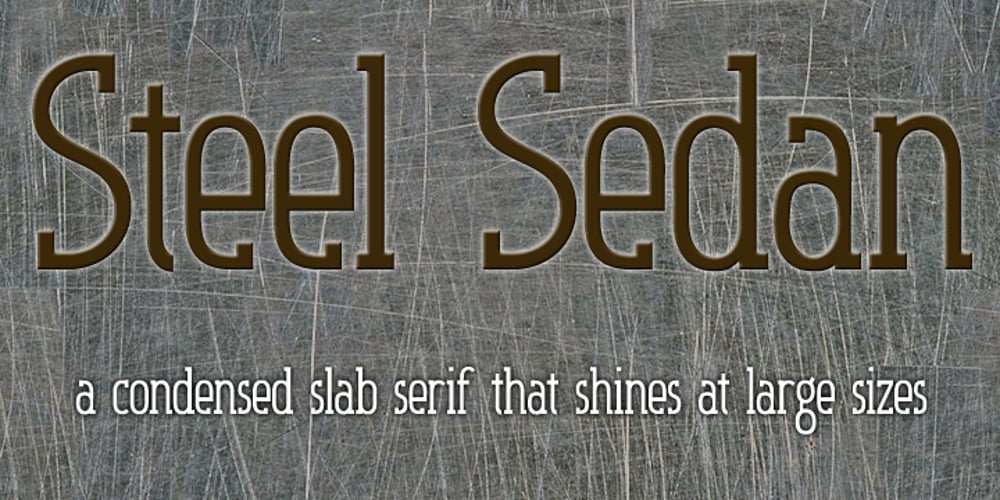
Steel Sedan
Steel Sedan font
Steel Sedan Font Family was designed by Alec Julien and published by Haiku Monkey. Steel Sedan contains 4 styles and family package options. The Steel Sedan family is tailor-made for fitting lots of information into tight spaces, with grace and slab serifs that mean business. Take it for a spin on your headlines, banners, and websites.